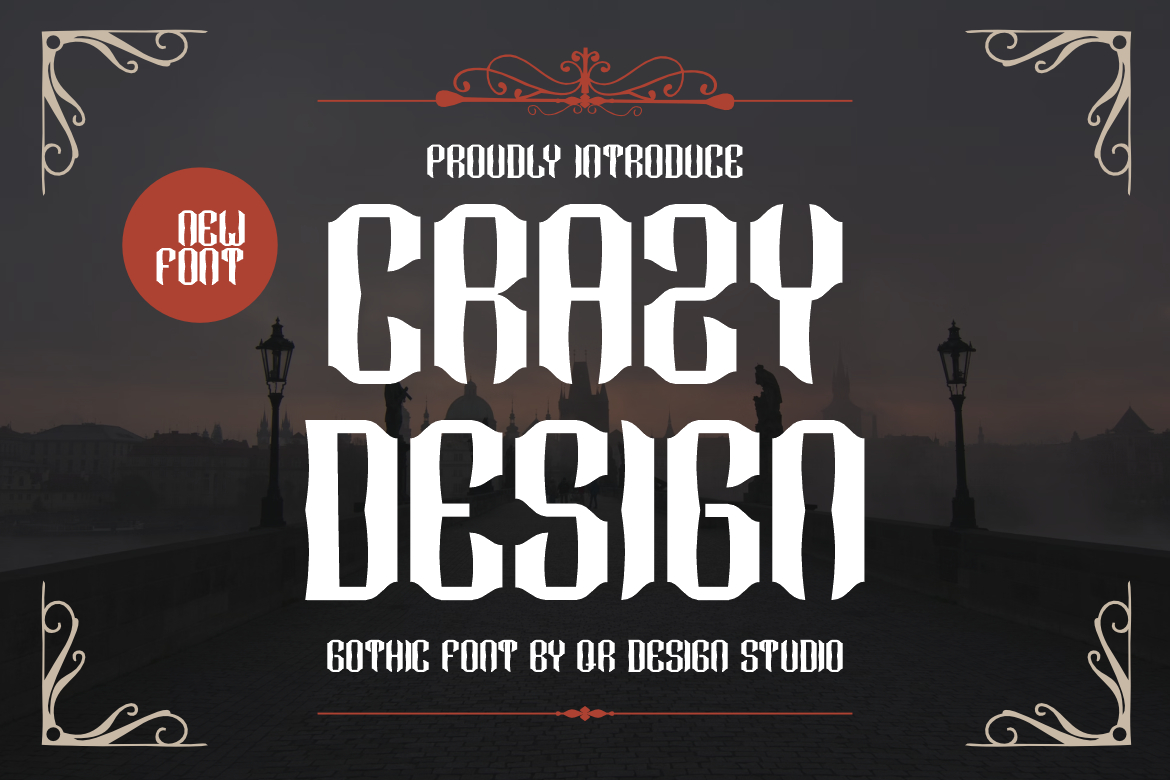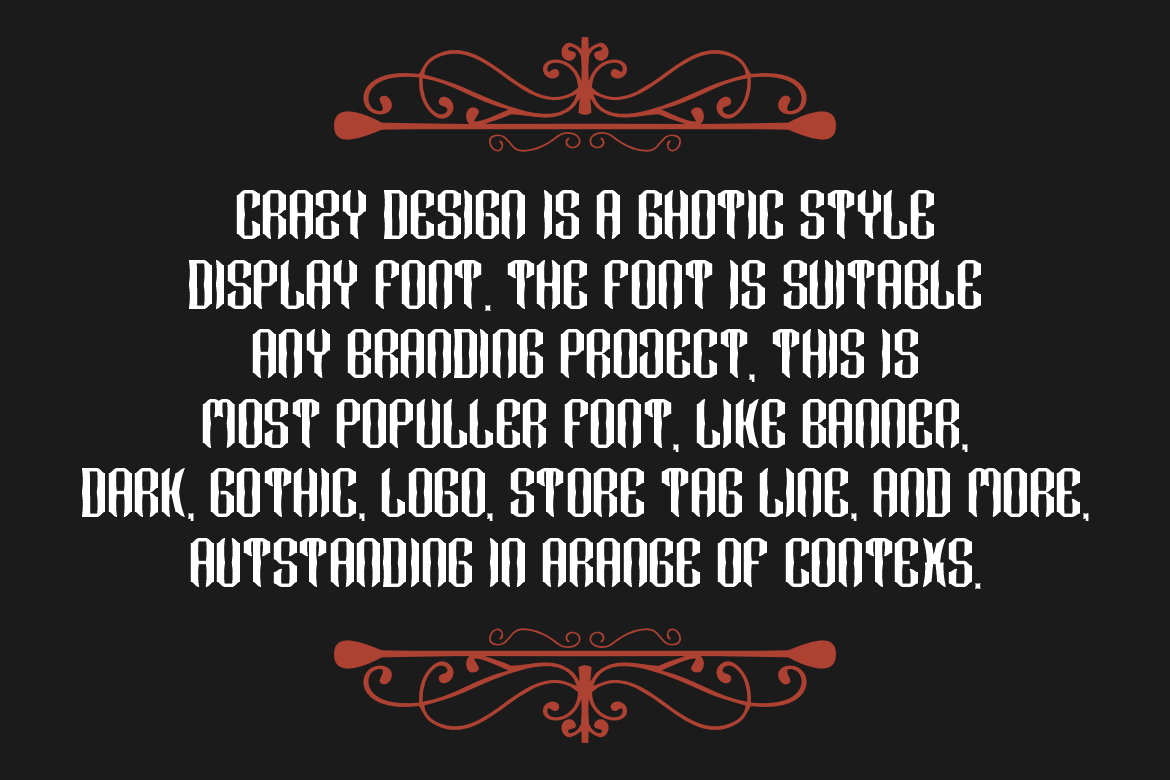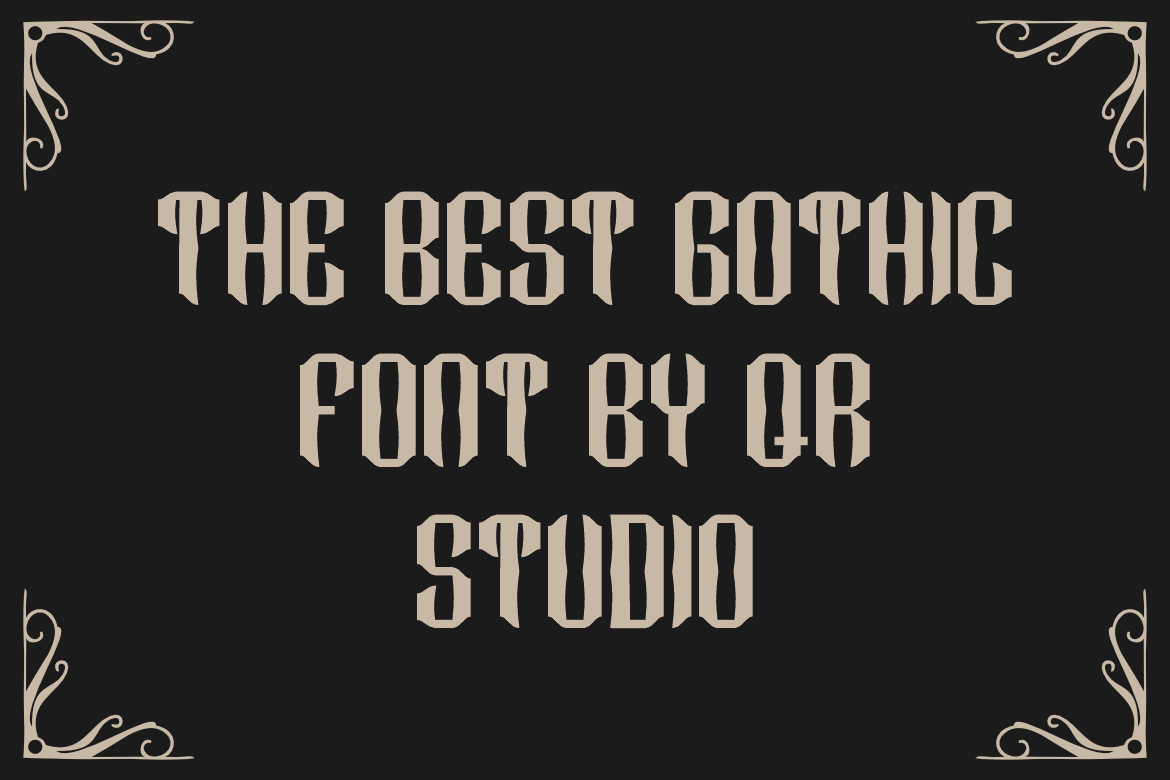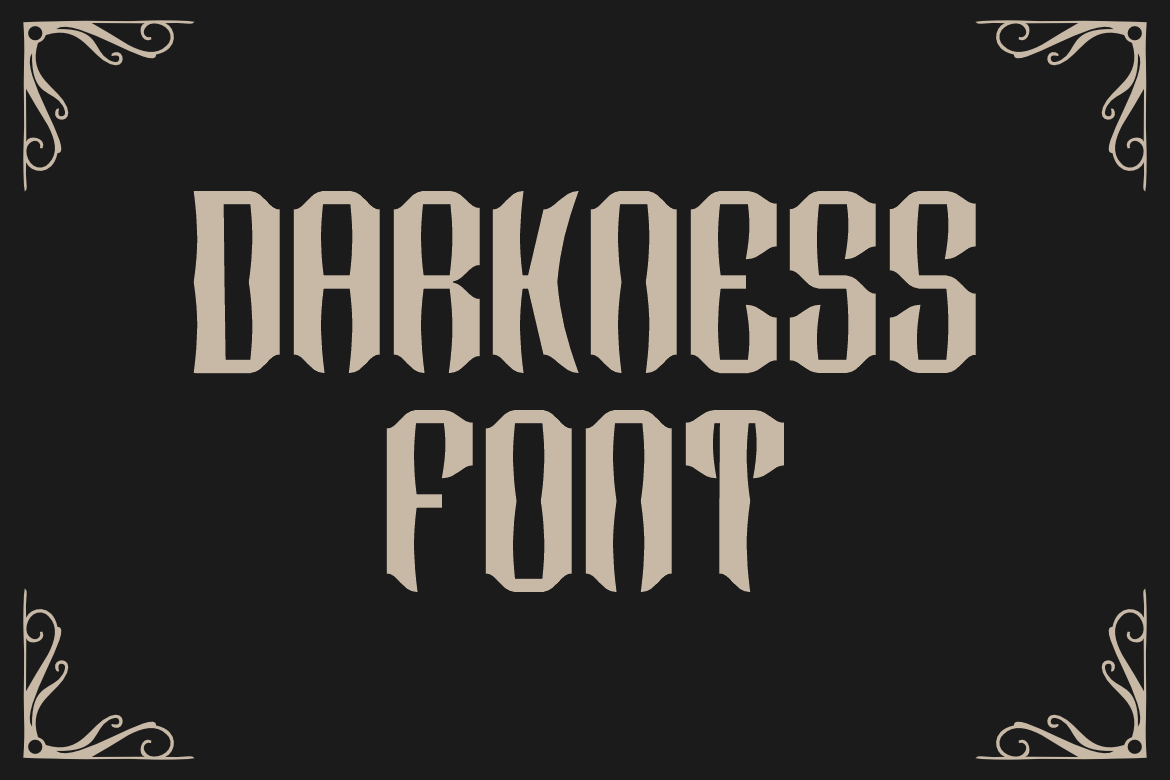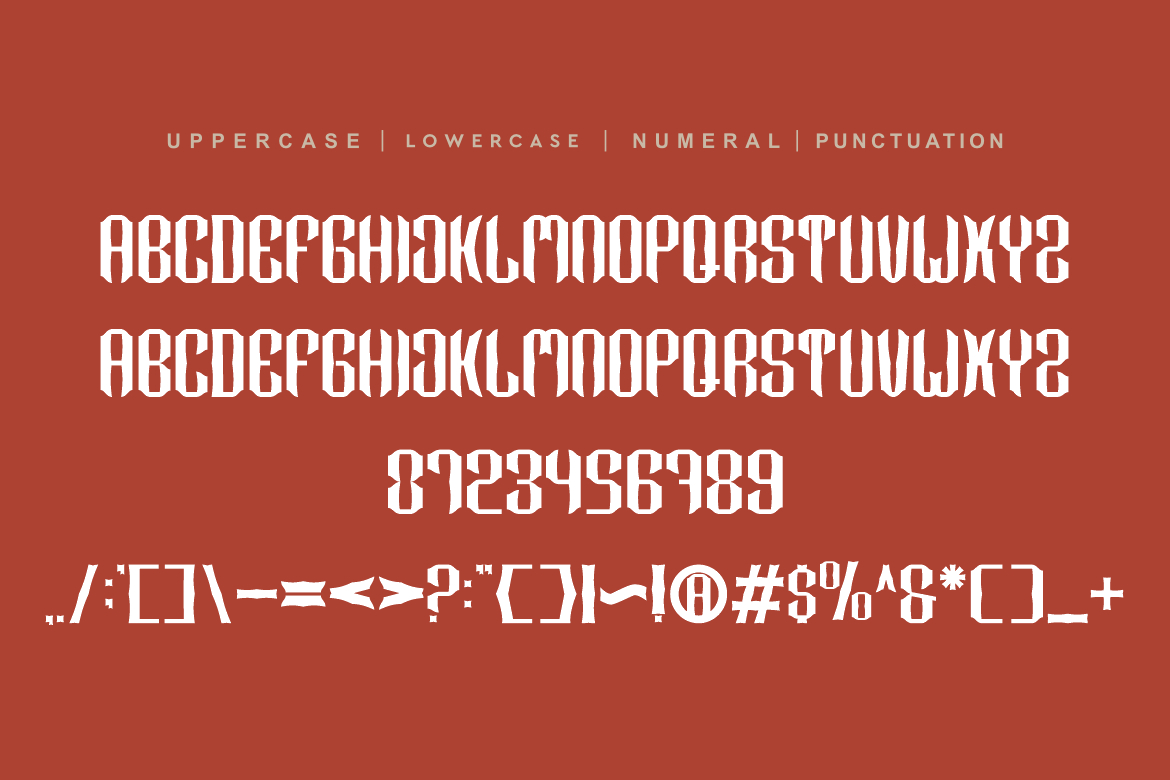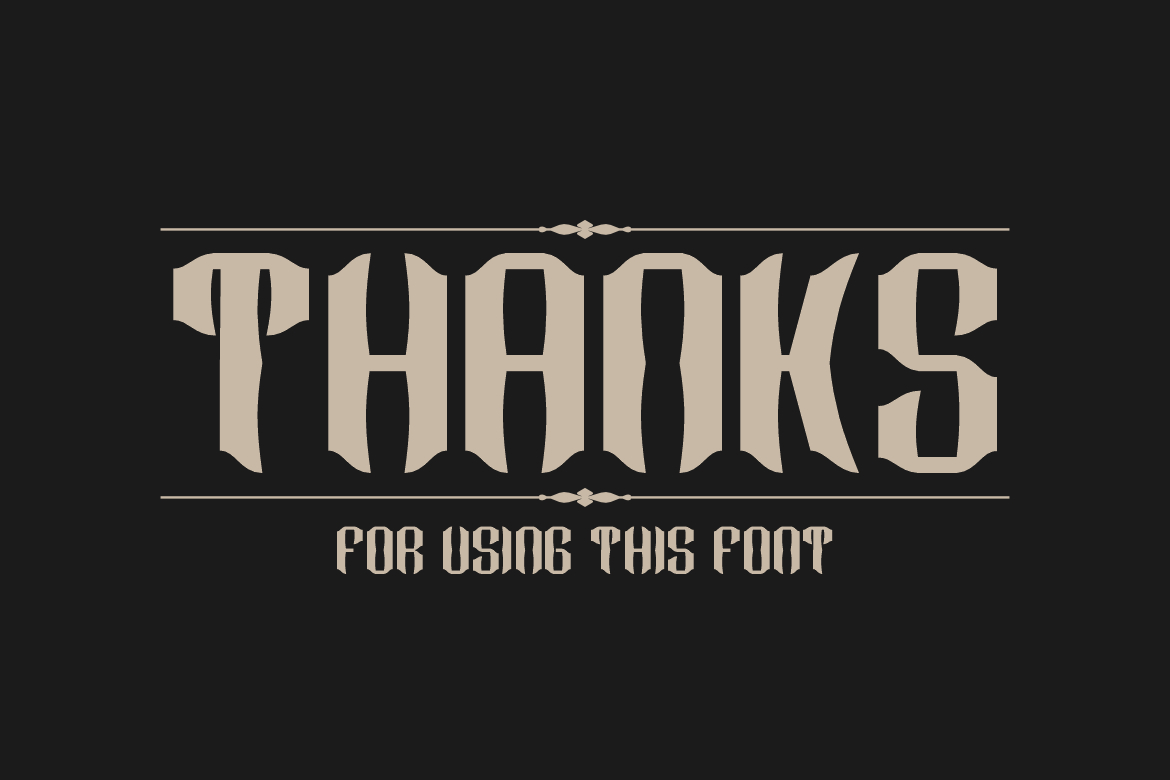
Crazy Design Font
About Crazy Design Font
Crazy Design Font is a bold and authentic display font.
The font is suitable for any branding project like logo, sport, and many more.